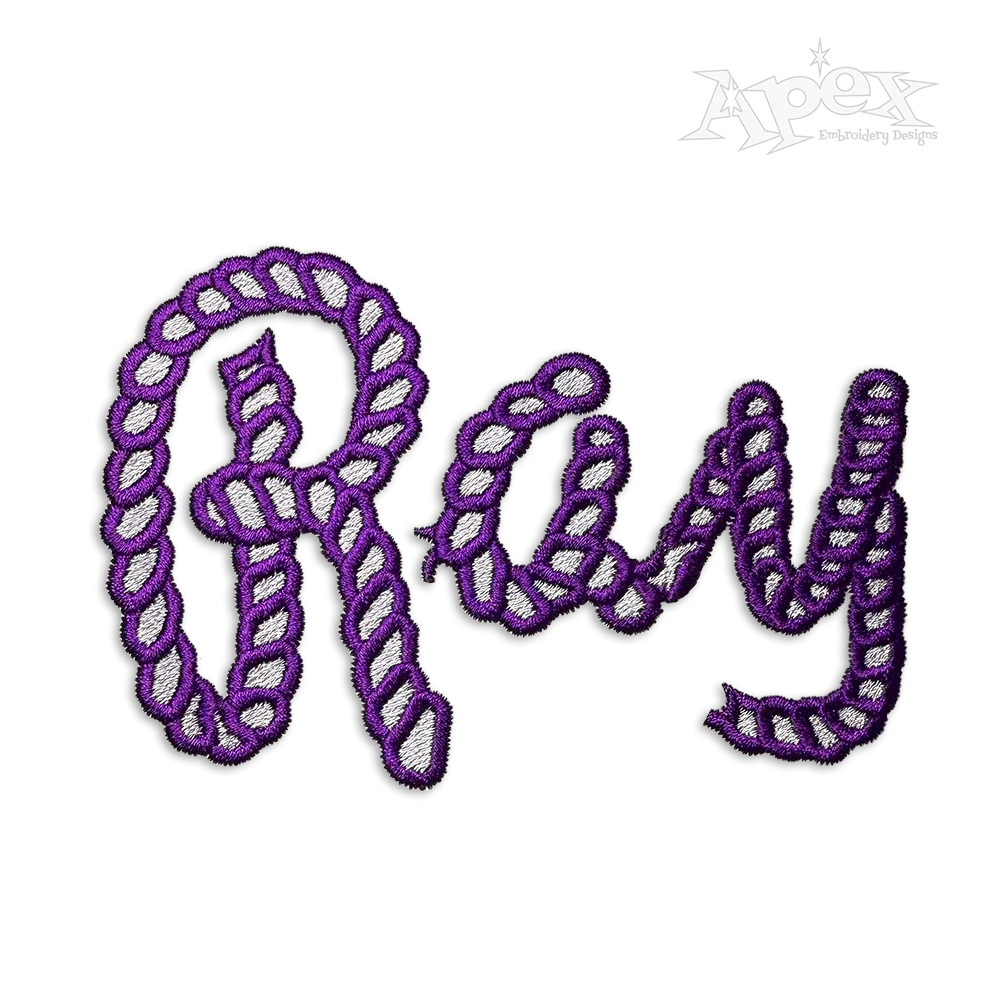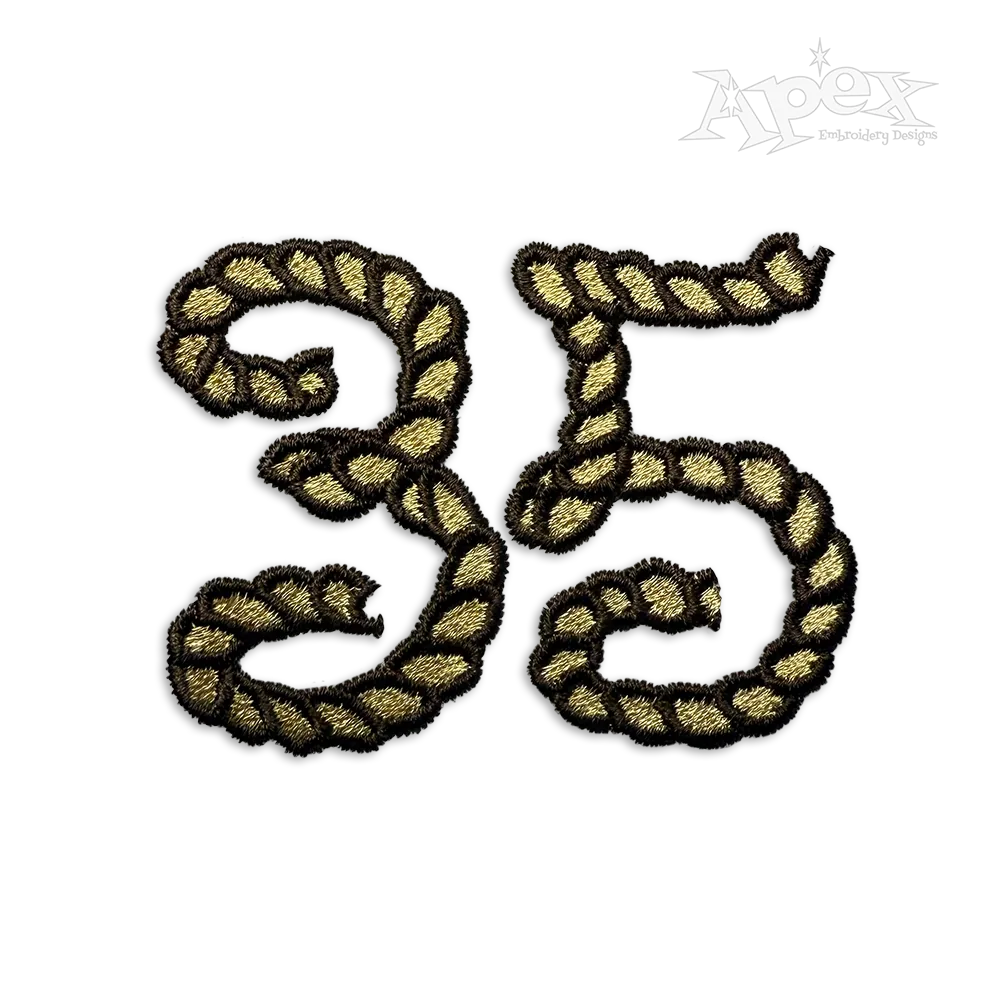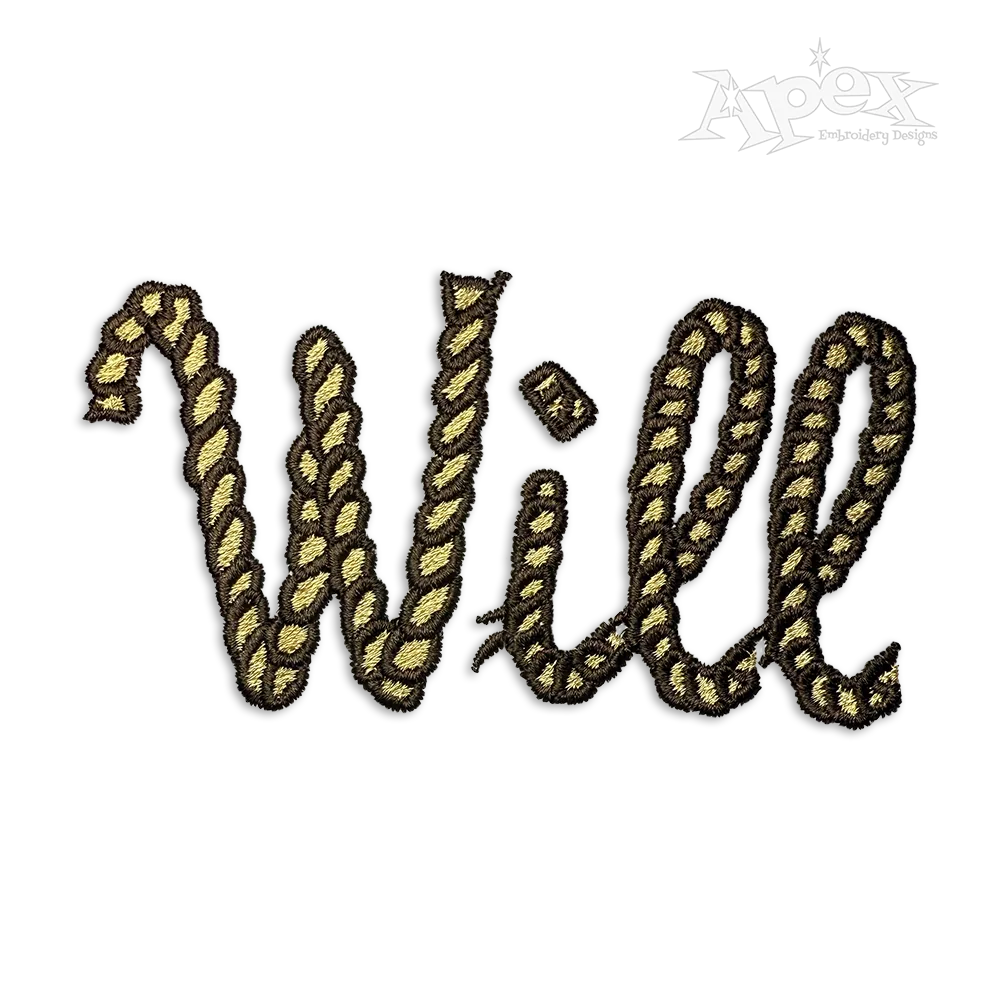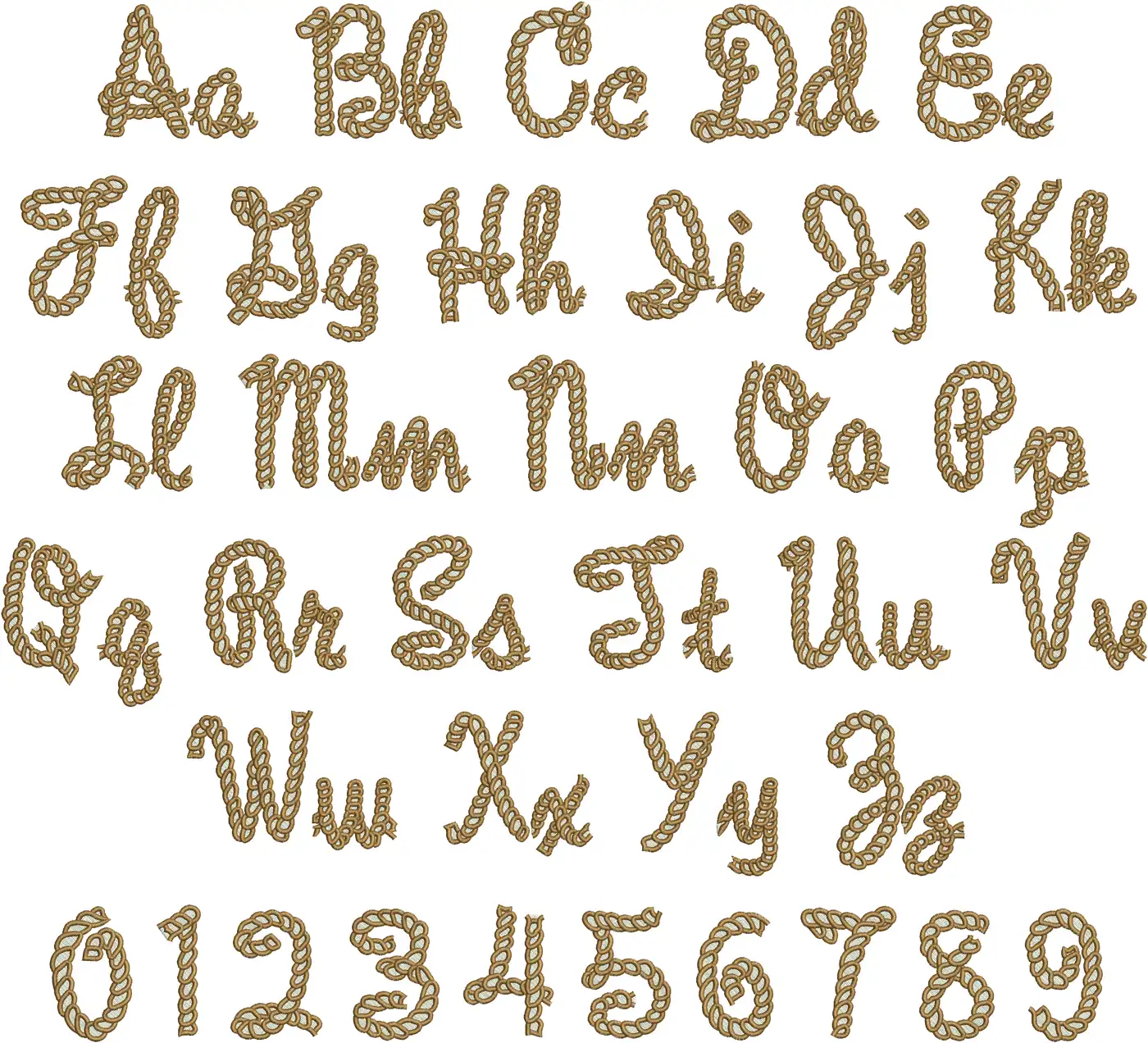
Rope Embroidery Font
Born from the sun-drenched romance of the open range and the rhythmic craft of handcrafted leather and rawhide, the Rope Embroidery Font captures the spirited elegance of the American West. Every sweeping curve and coiled knot in this two-color satin stitch alphabet echoes the authentic tension of twisted lariat, turning traditional lettering into a tactile, sculptural statement. Designed to give monograms and custom phrases dimensional depth, this design transforms humble thread into the rugged artistry of hand-spun lasso cordage, bringing warmth, heritage, and frontier vitality to any project.
Digitized with meticulous precision to maintain sharp definition and realistic twists across every scale, this versatile typography collection includes uppercase letters, lowercase letters, and complete numbers in the following sizes:
- 2.0 Inch (approx. 50 mm) ? Ideal for pocket details, caps, and refined monogram accents
- 3.0 Inch (approx. 75 mm) ? Balanced for tote pockets, children's outerwear, and table linens
- 4.0 Inch (approx. 100 mm) ? Dramatic scale for statement jacket backs, pillows, and heirloom quilts
Project Ideas for Rope Embroidery Font
The organic warmth of braided cordage pairs beautifully with sturdy natural textiles and casual luxury pieces alike. Transform ordinary blanks into cherished personalized gifting and heirloom embroidery keepsakes:
- Custom Western Denim & Outerwear: Stitch bold family names or initials across the upper yoke of denim jackets, chore coats, or canvas utility vests.
- Ranch & Lodge Linens: Elevate heavy linen cocktail napkins, rustic hemstitch runners, or canvas throw pillows with bespoke ranch monograms.
- Rodeo & Barn Gear Bags: Personalize heavy-duty canvas duffels, boot bags, and grooming totes with durable, standout lettering.
- Children?s Heirloom Keepsakes: Create unforgettable cowboy-themed nursery quilts, birth announcement wall banners, and first-birthday overalls.
- Bespoke Gifting: Embroider aprons for the backyard pitmaster, waffle-weave robes for a mountain retreat, or personalized saddle blankets.
Because the two-color twist inherently commands visual attention, intentional framing and placement will allow the letters to shine without overwhelming the garment:
- Center Back & Yoke: Use the 4-inch scale across the upper back of jackets or sweatshirts to create a striking, vintage-inspired focal point.
- Left Chest & Pocket Alignments: The 2-inch and 3-inch heights sit handsomely over jacket pockets, button-down western shirts, or heavy flannel workwear.
- Diagonal Corner Placements: Angle a single initial 45 degrees across the corner of heavy flax linen napkins or throw blankets for an understated, upscale feel.
- Framed Canvas & Wall Banners: Combine initials or names at the optical center of stretched linen banners for custom cabin or nursery art.
Rope Embroidery Font Craft & Letterform Details
True embroidery craftsmanship lives in the interplay of tension, direction, and light. When digitizing the Rope Embroidery Font, our primary goal was to avoid the flat, lifeless look of standard fonts masquerading as cordage. Instead, each character is sculpted in two distinct color layers?a foundational body and a deliberate overlay?that mimic the realistic highlights and deep cast shadows of twisted fiber.
Every turn in the alphabet is engineered with deliberate needle penetrations that follow the natural sweep of a braided lasso. Satin stitch angles rotate dynamically around loops and terminals, ensuring thread captures the ambient light just as genuine rope catches the prairie sun. Micro-managed underlay provides crisp, stable loft without unnecessary density, ensuring the finished embroidery remains remarkably soft and pliable against the fabric rather than stiff or bulletproof. It is a harmonious celebration of western heritage and precision digitizing, ready to anchor your most inspired stitchery.